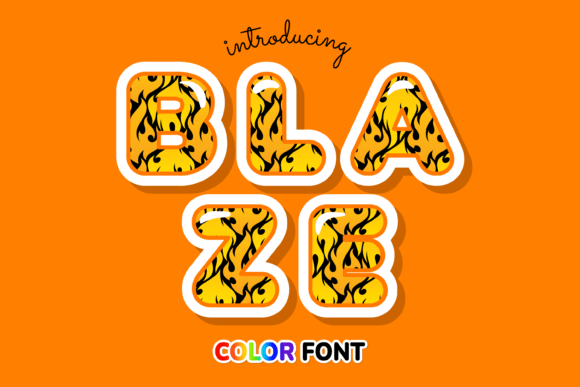
Ignite your designs with Blaze, the font family erupting with fiery hues. Inspired by the beauty of blazing flames, this collection of colored fonts brings warmth and boldness to your creative visions. Whether you're a design virtuoso seeking unique fonts for Vinyl Cricut projects, a passionate crafter longing to elevate your DIY artworks, or simply an artistic soul seeking fonts for creative brilliance, Blaze Font Family has got you covered.
Embark on a thrilling journey with Blaze, an electrifying color font brimming with pizzazz and style. Its striking hues and captivating details will leave an unforgettable impression. Each character dances off the page like a playful flame, adding a vibrant touch to your designs. Create eye-catching posters, logos, social media graphics, or anything your imagination desires with Blaze.
Unleash your creativity with Blaze and elevate your designs to new heights. Its vibrant colors and vibrant appearance will spark joy and captivate your audience. Whether you're a seasoned designer or just starting, Blaze empowers you to express yourself unapologetically.
Step into a world of endless possibilities with Blaze. Its vibrant strokes and fiery essence ignite a passion within. Unleash your inner artist and take your designs to the next level. With Blaze, the possibilities are limitless.